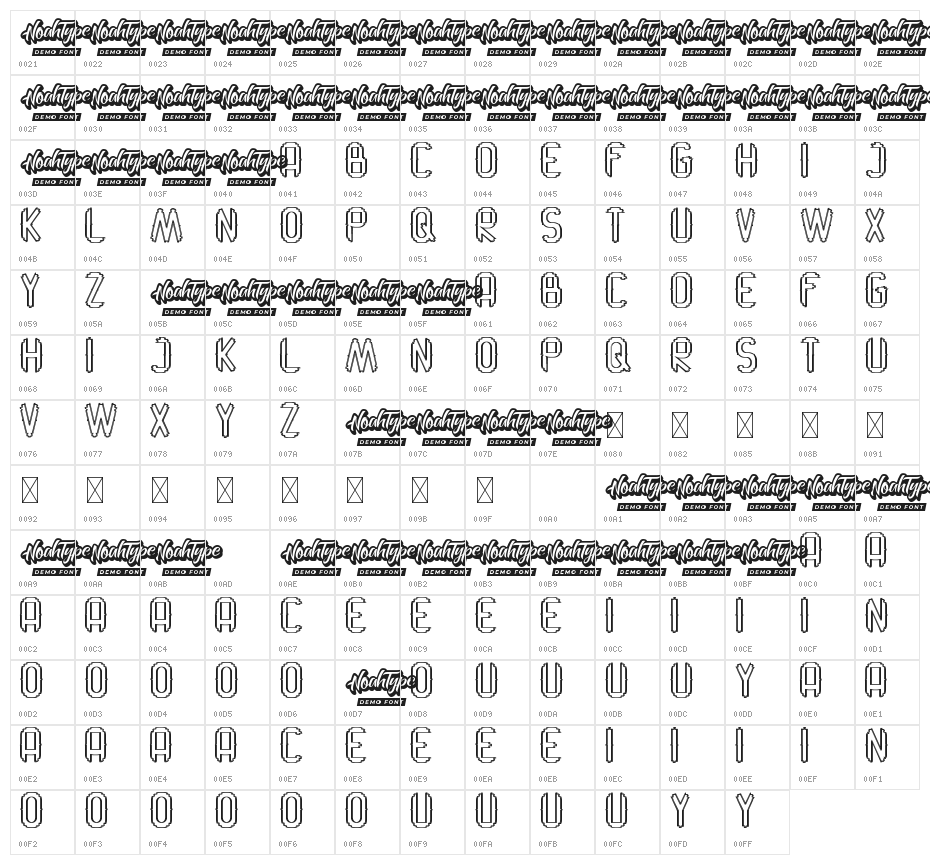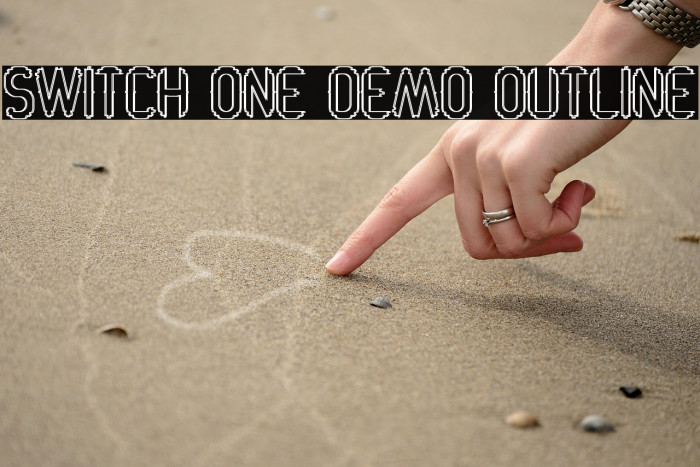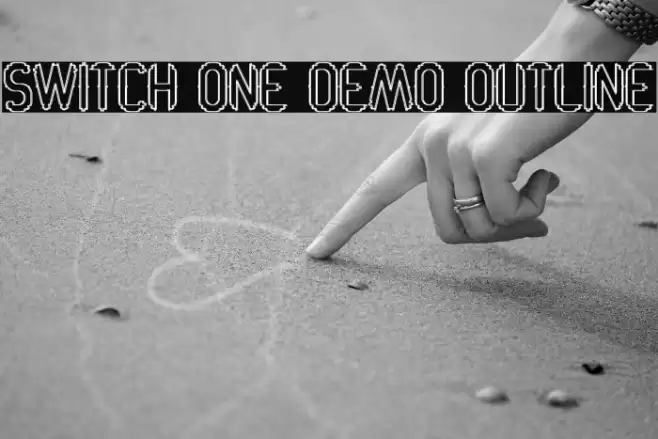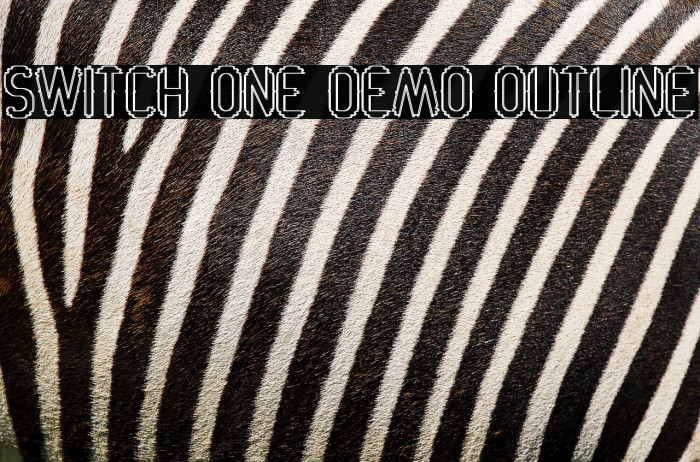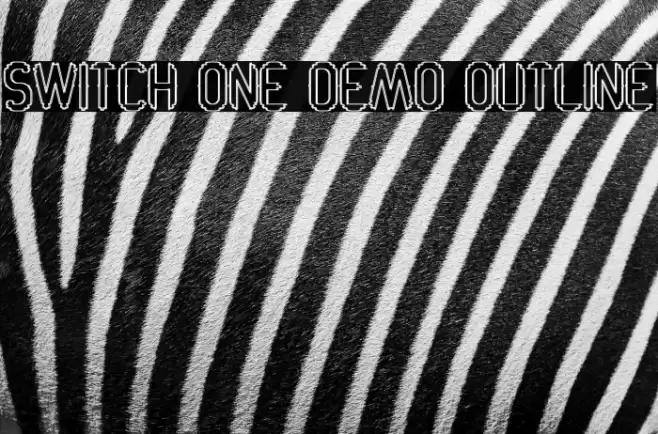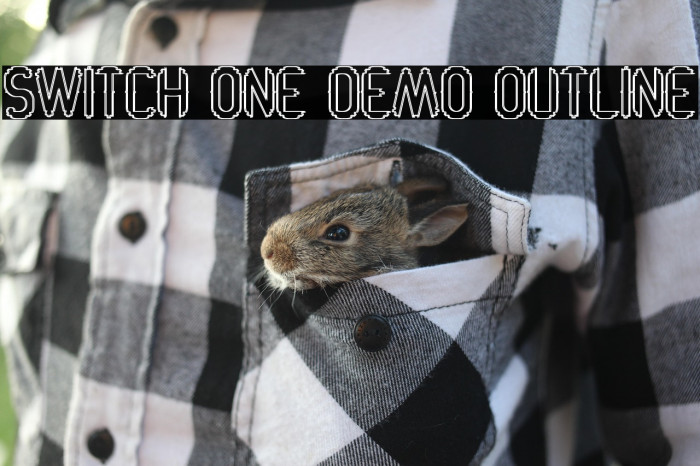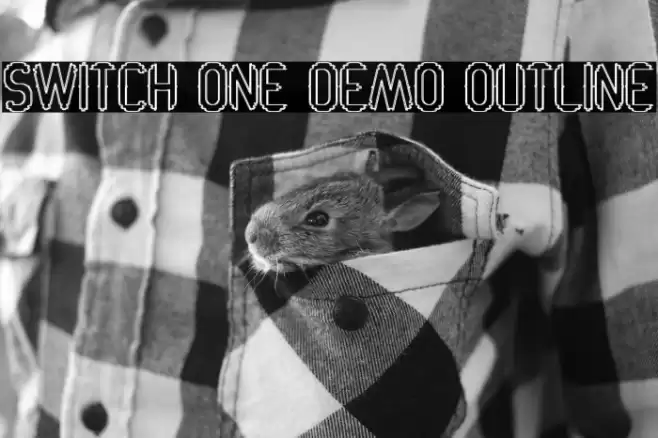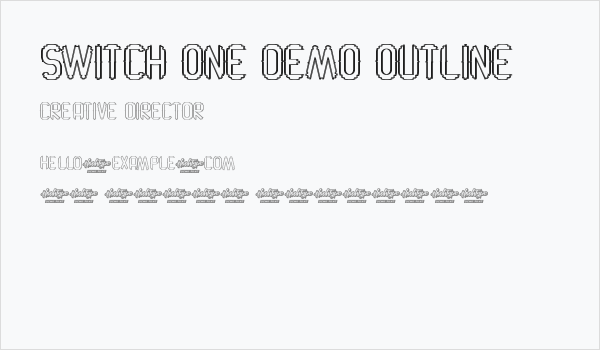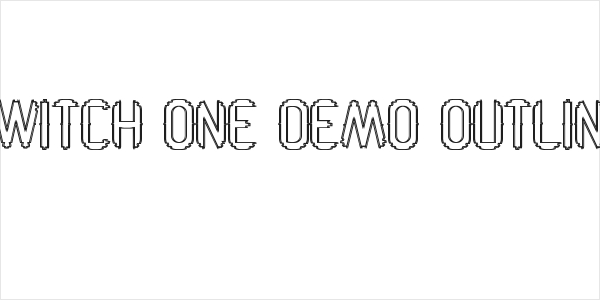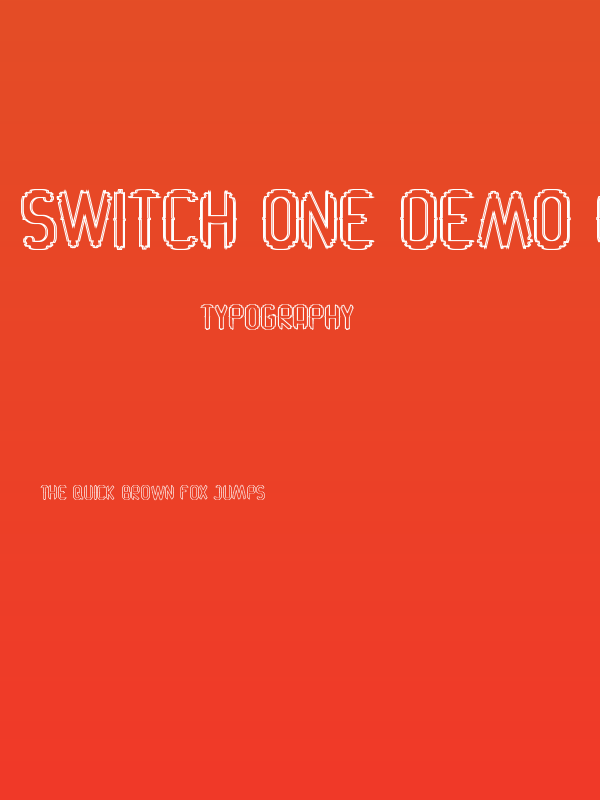
Switch One Demo Outline Font
Switch One Demo Outline Description
This font features a unique outline style with a futuristic and geometric appearance. The characters are constructed with bold, angular lines that create a sense of depth and dimension. The uppercase letters are consistent in height, with sharp edges and a distinct industrial feel. The font's design is reminiscent of digital or electronic themes, making it suitable for modern and tech-oriented projects. Its outline nature gives it a lightweight appearance, while still maintaining a strong visual presence.
| Proposed Projects | Ideal for tech-themed designs, digital art, futuristic branding, and electronic music album covers. |